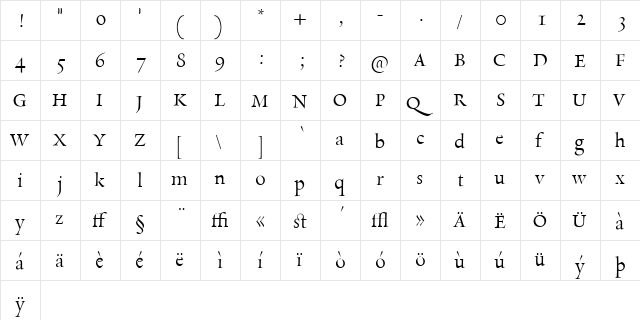
RialtoDF-Regular Regular
RialtoDF-Regular offers clean, dependable letterforms without strong stylistic allegiance, making it a practical choice for designers who need flexibility.